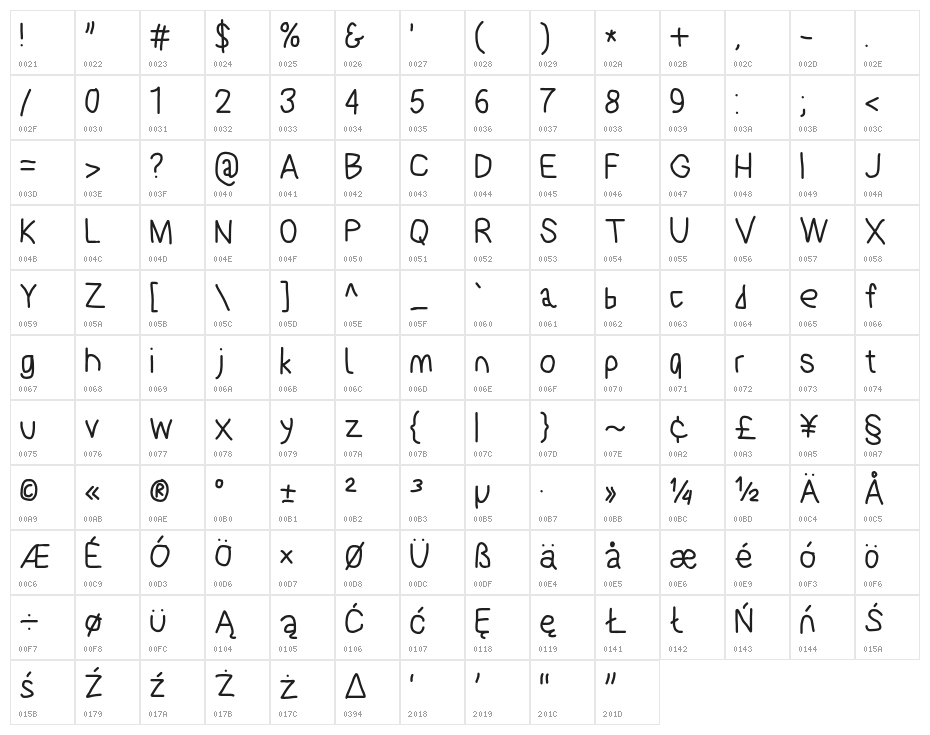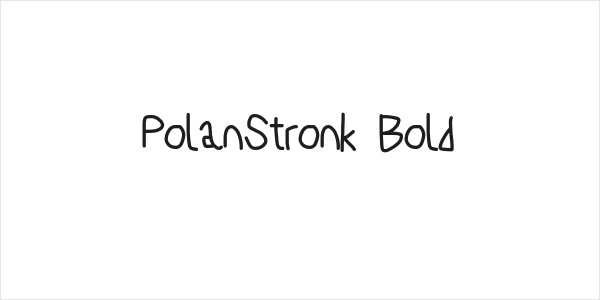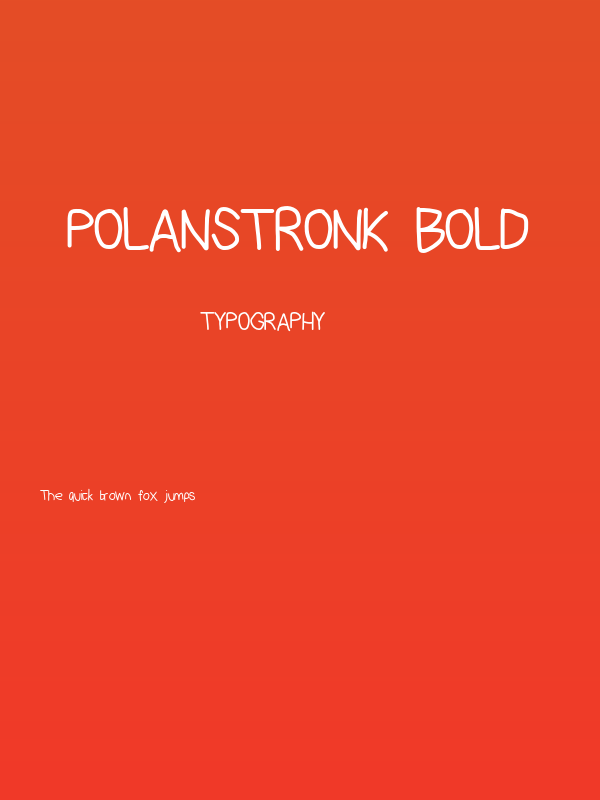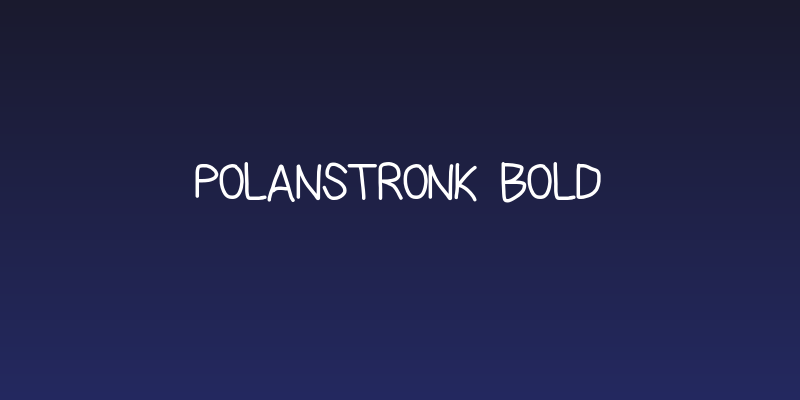
PolanStronk Bold Font
PolanStronk Bold Description
This font features a playful and informal handwritten style, characterized by its bold and slightly irregular strokes. The letters have a whimsical, almost childlike quality, with rounded edges and varying line thickness that adds a sense of movement and energy. The uppercase and lowercase letters maintain a consistent style, while the numerals and special characters complement the overall aesthetic. The font's casual appearance makes it suitable for projects that require a friendly and approachable feel.